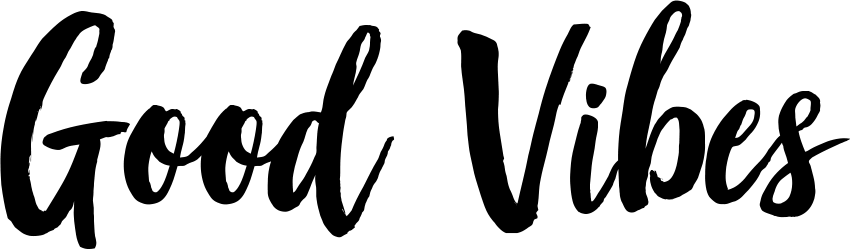
Good Vibes Font
Designed byBLKBK Fonts
Are you looking for a special tropical script font that will help you create beautiful cursive designs? Good Vibes is the ideal font for you! It’s a brush font that’s perfect for invitations, diplomas, important documents, and even announcements. It doesn’t contain symbols. Try it out today and see how good your designs can look!